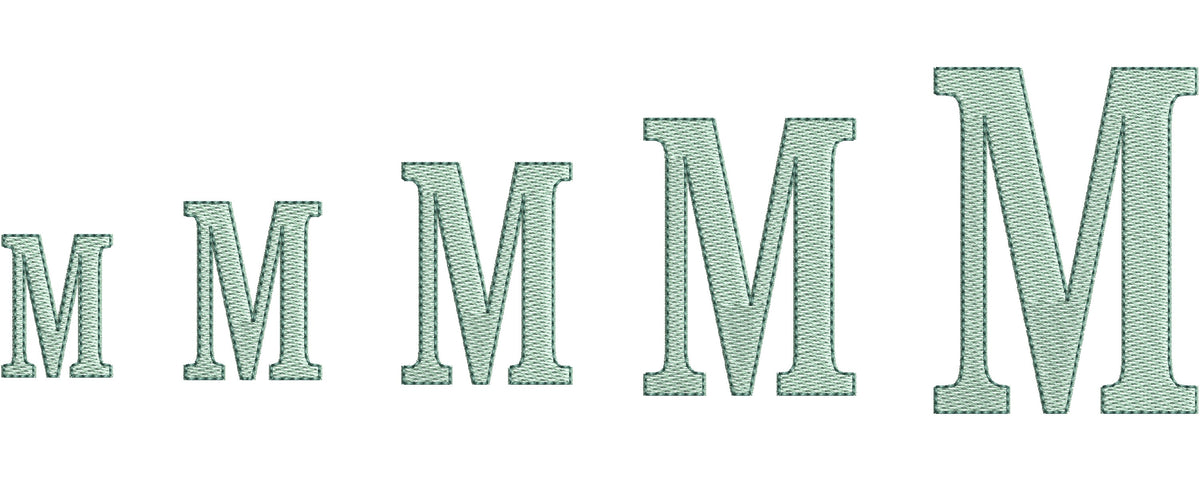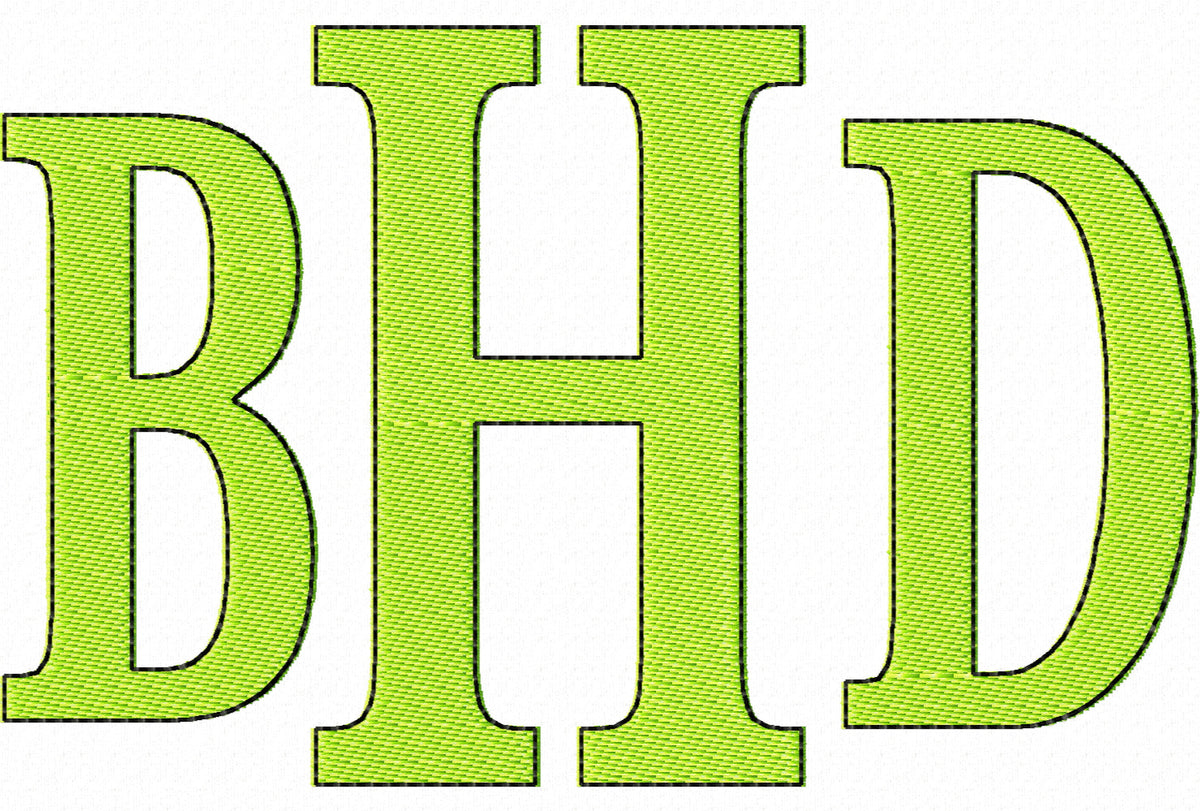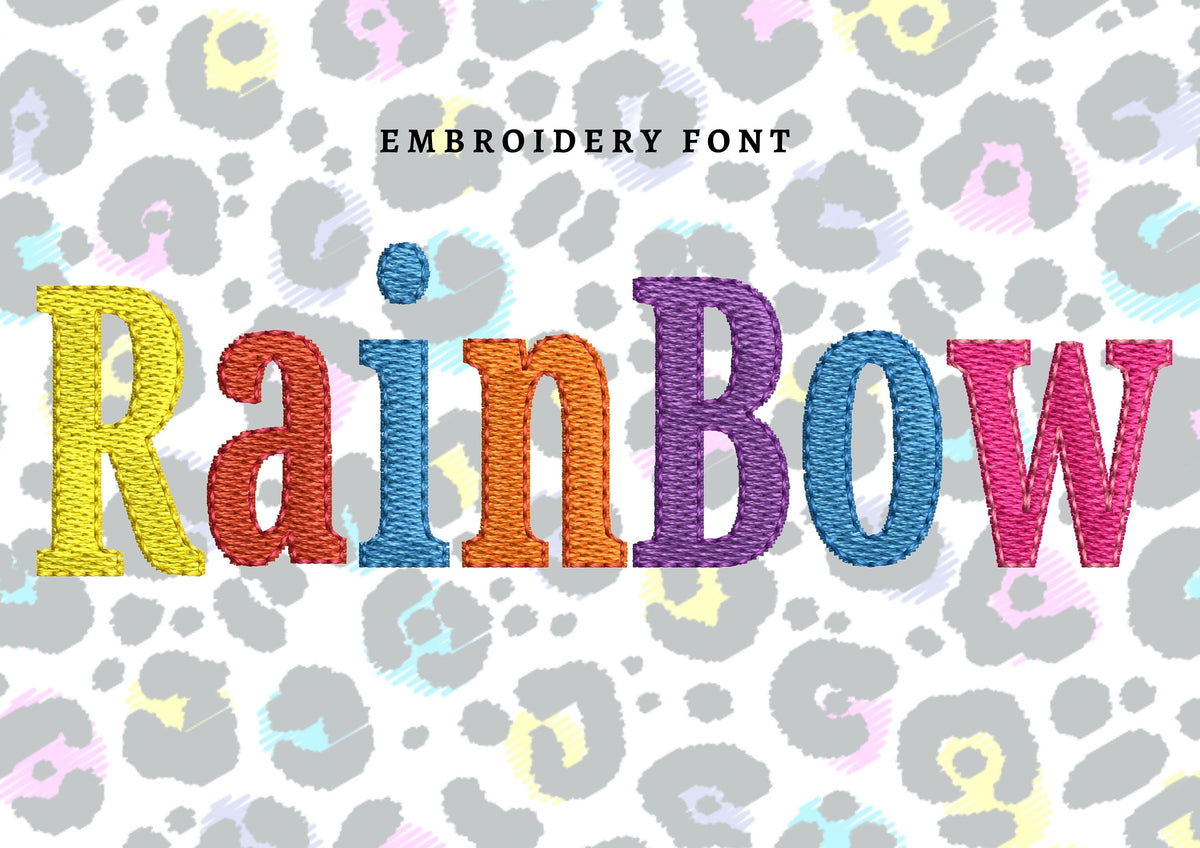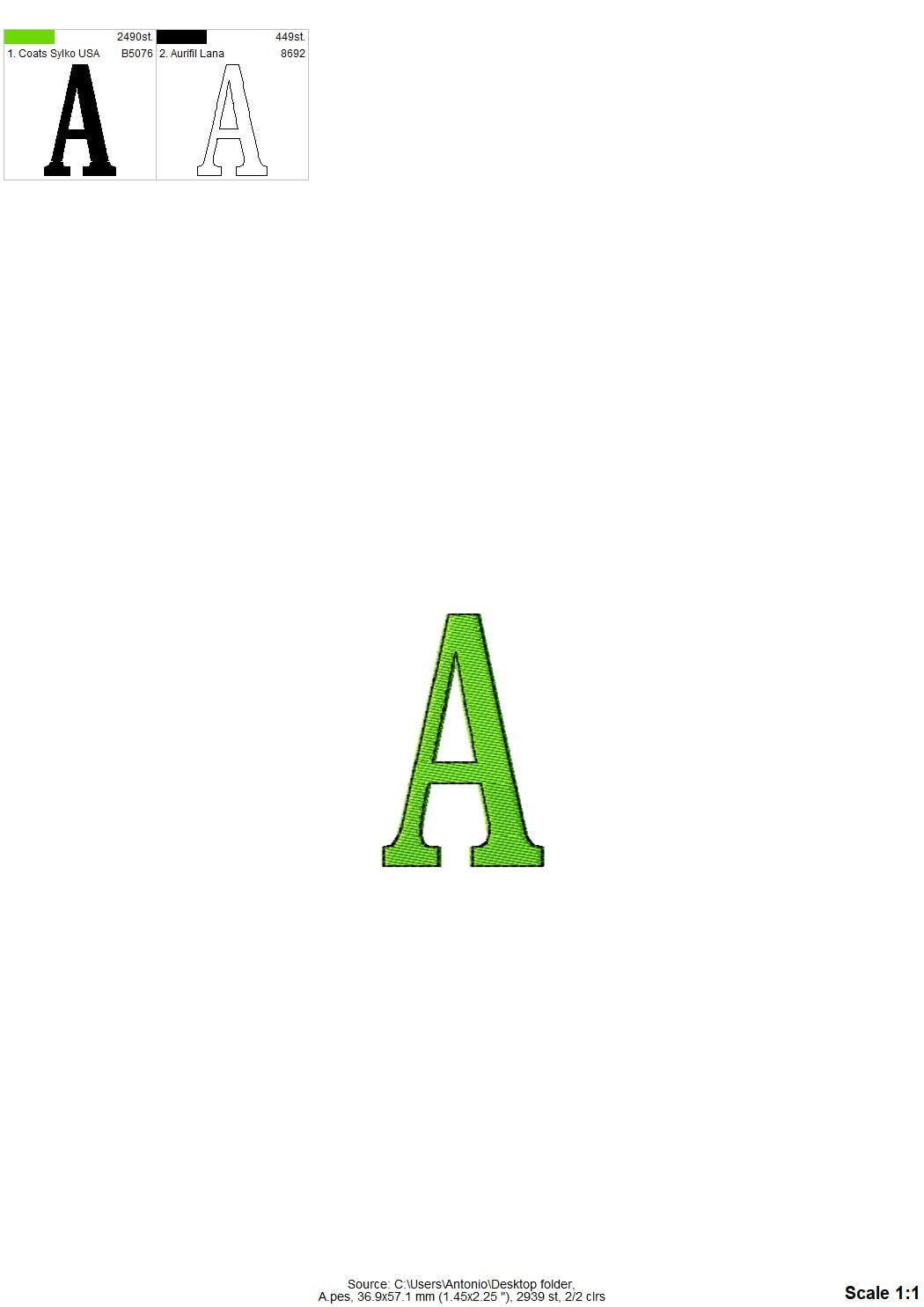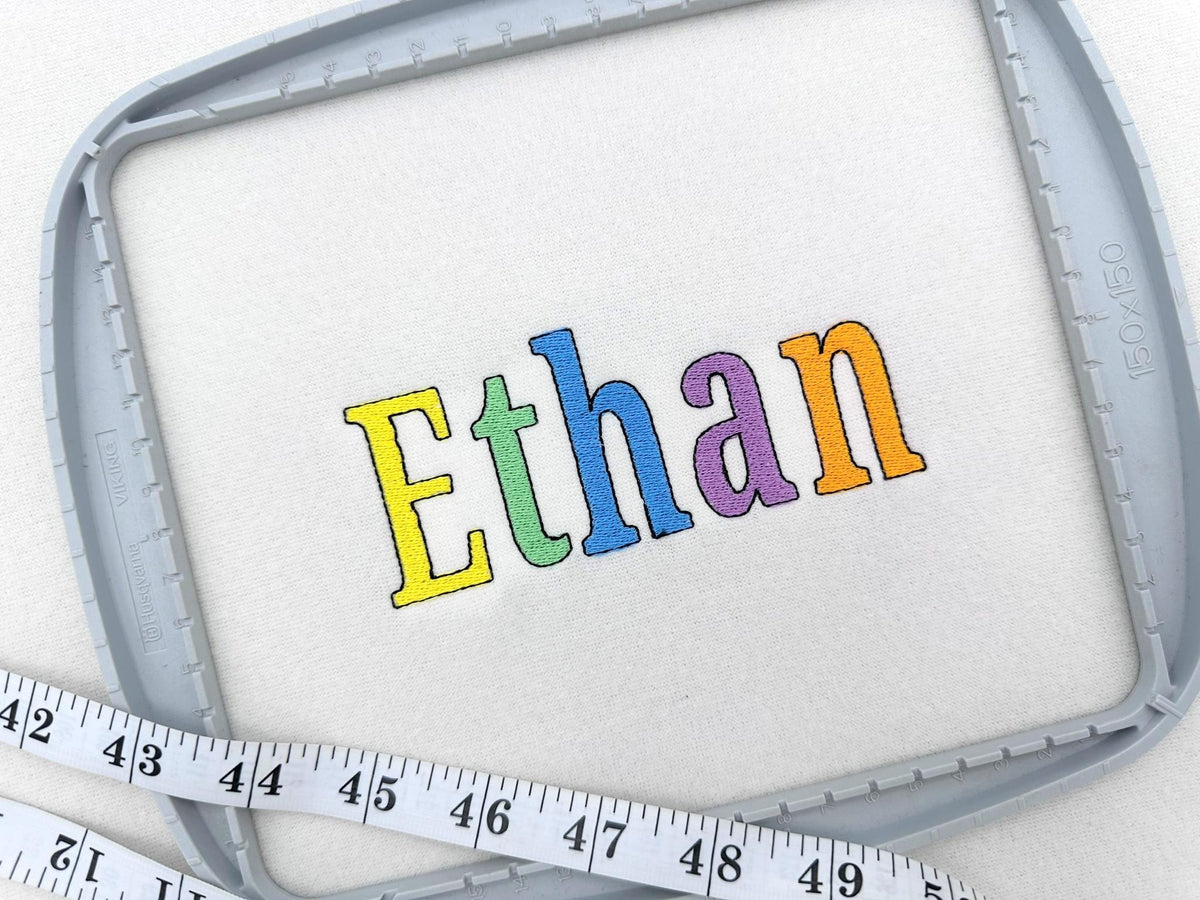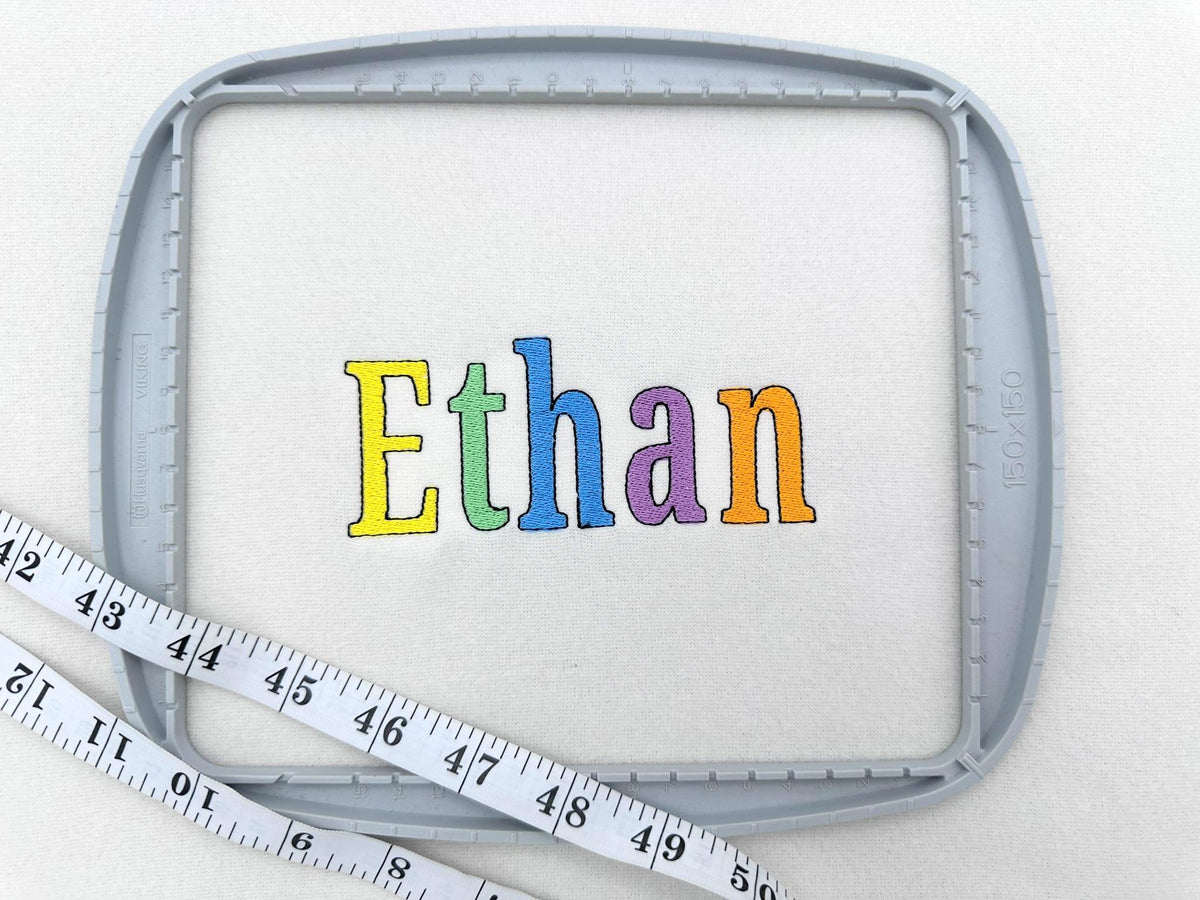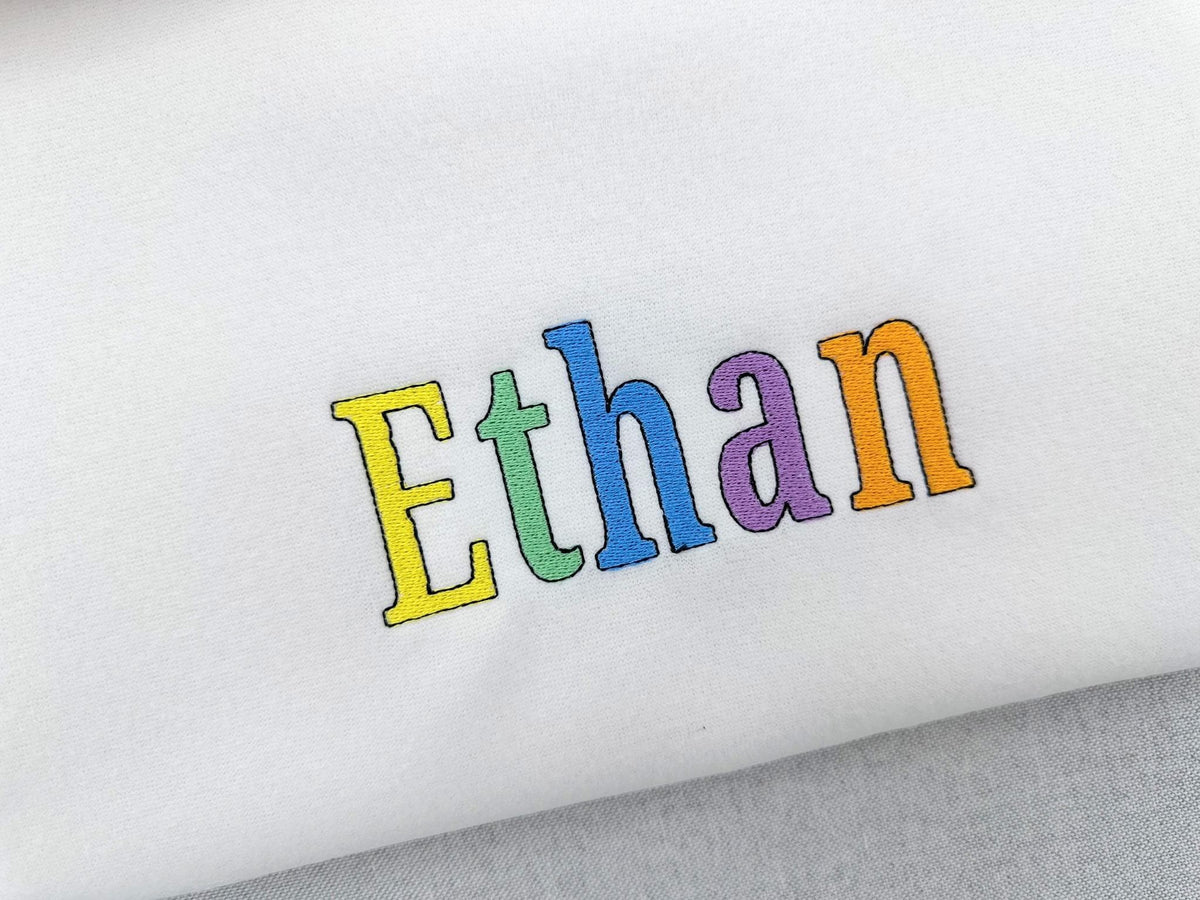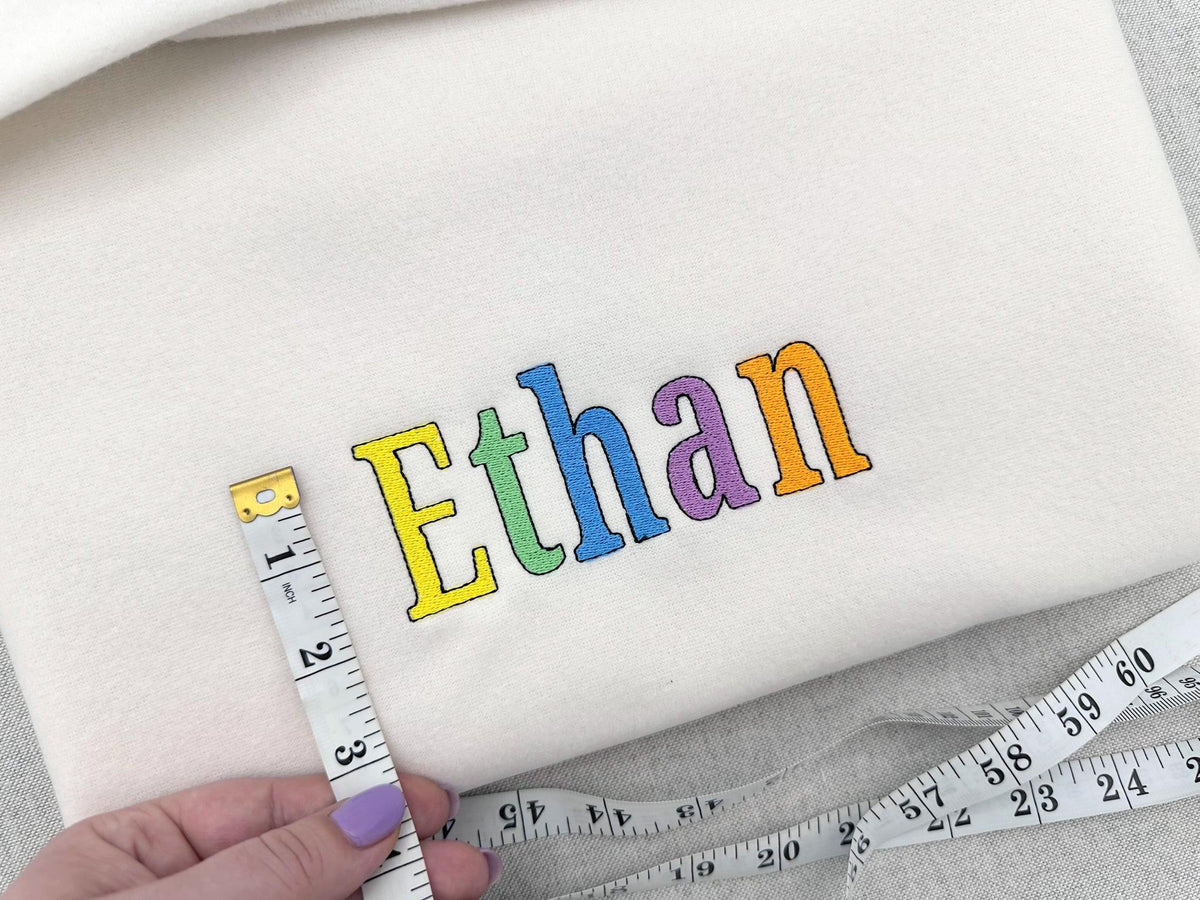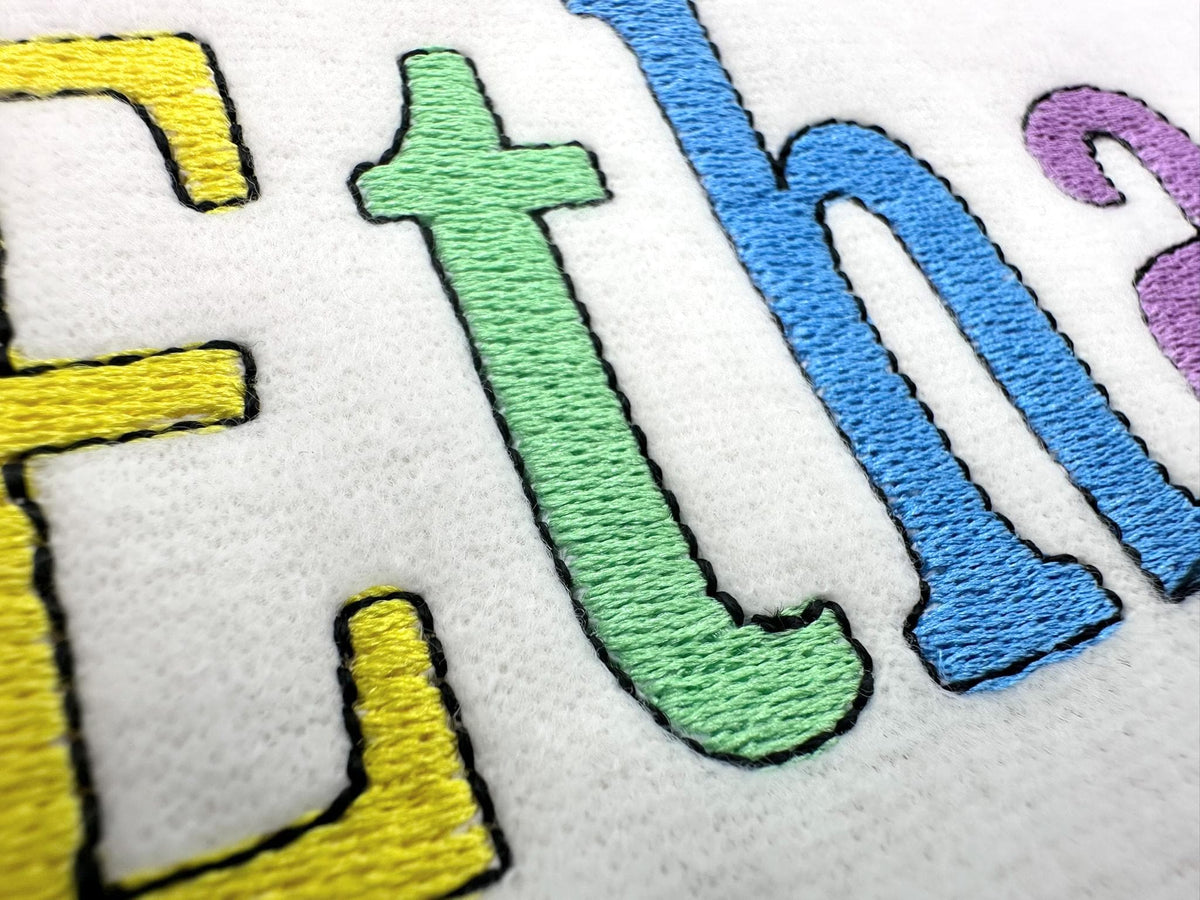
Fill Stitch Block Font Ronny
Or click to open the linkA classic block font in fill stitch with a thin bean stitch outline. Great for names, monograms and kids' clothes.
The letters come in eight sizes: 1, 1.1, 1.4, 1.7, 2.2, 2.8, 3.5 and 4.3 inches. Fill stitch block letters with a thin bean stitch outline. Includes uppercase and lowercase letters A to Z, numbers 0 to 9 and punctuation.
- Fill stitch block font, bean stitch outline
- 8 sizes, 1 to 4.3 in